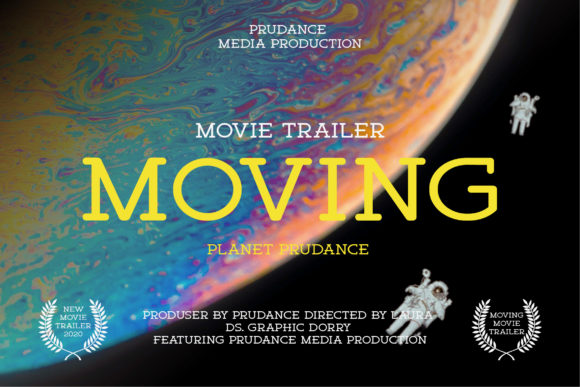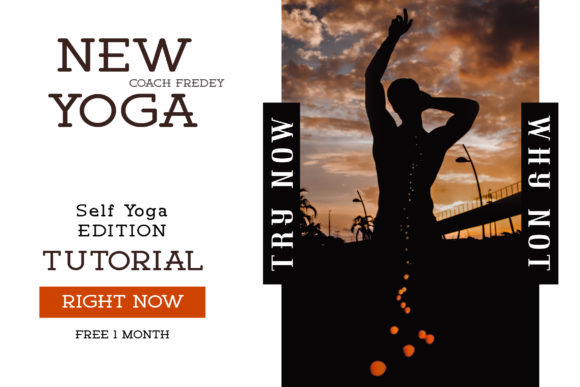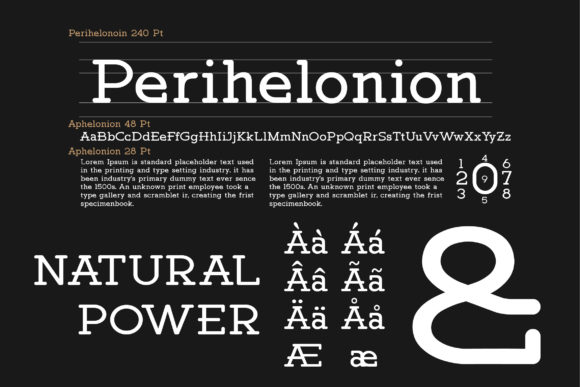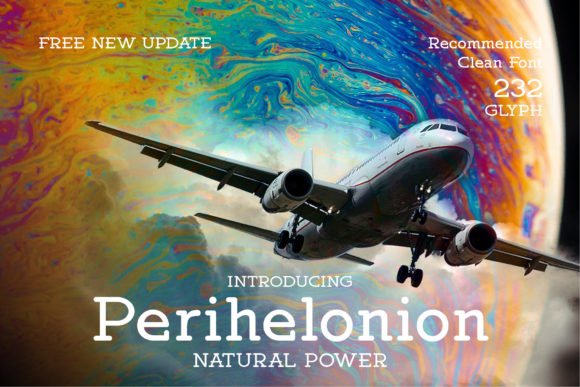
Introduction to Perihelonion Font
Perihelonion is a minimal and neat serif font.
Why Choose Perihelonion Font?
Perihelonion Font offers exceptional quality and versatility, making it a valuable addition to your design toolkit. Whether you’re creating for personal projects or commercial use, Perihelonion Font delivers professional results.